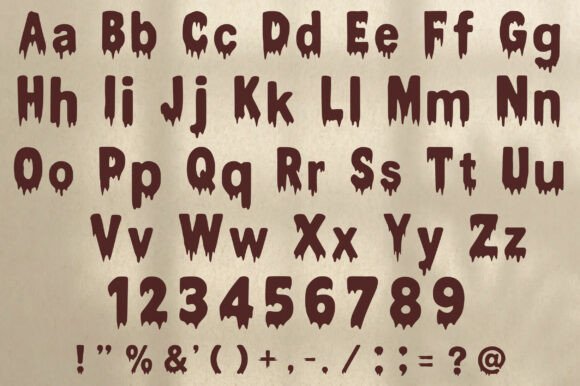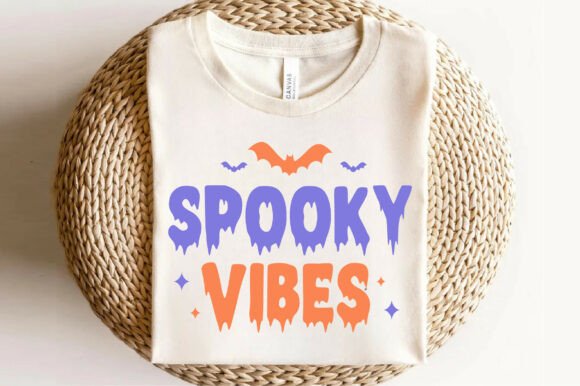
Introduction to Bloody Drip Font
The Bloody Drip Font is a spooky and bold typeface perfect for Halloween, horror designs, and creepy projects.
With its dripping letter style, this font brings a scary yet playful touch to posters, T-shirts, invitations, and digital crafts Ideal for haunted house flyers, zombie party themes, or any design that needs a bloody, chilling effect.
Key Features of Bloody Drip Font
Why Choose Bloody Drip Font?
Bloody Drip Font offers exceptional quality and versatility, making it a valuable addition to your design toolkit. Whether you’re creating for personal projects or commercial use, Bloody Drip Font delivers professional results.